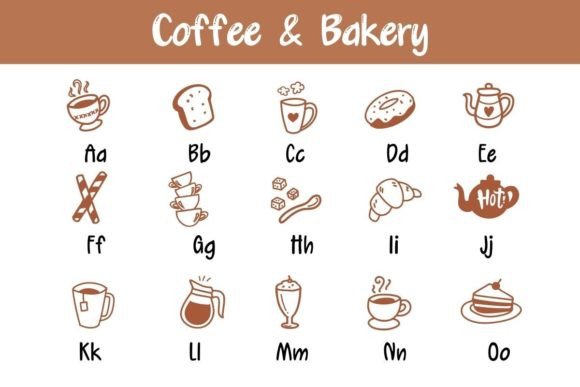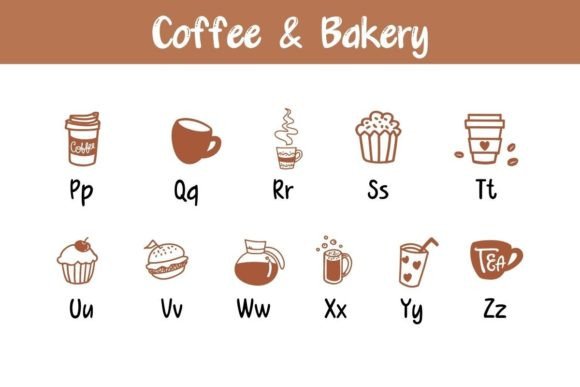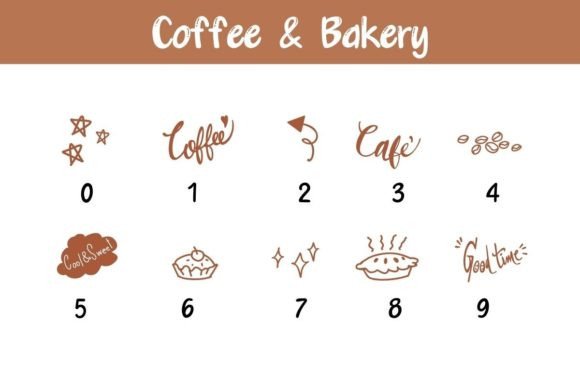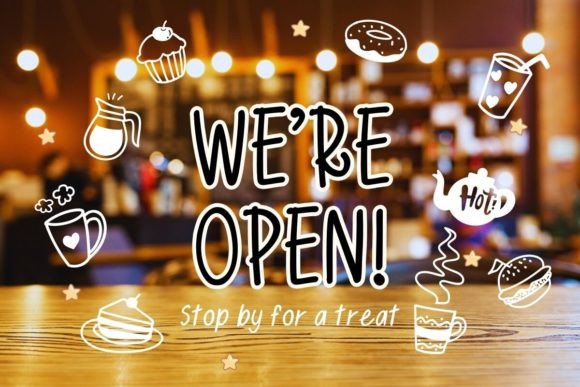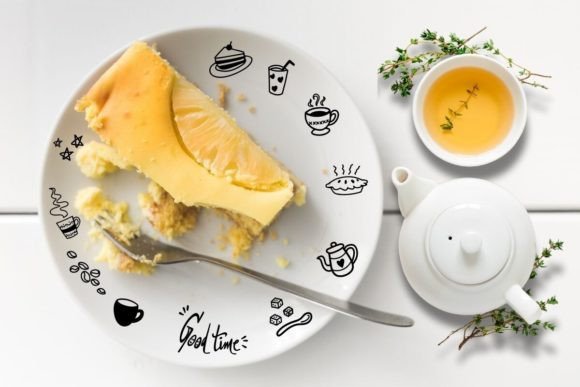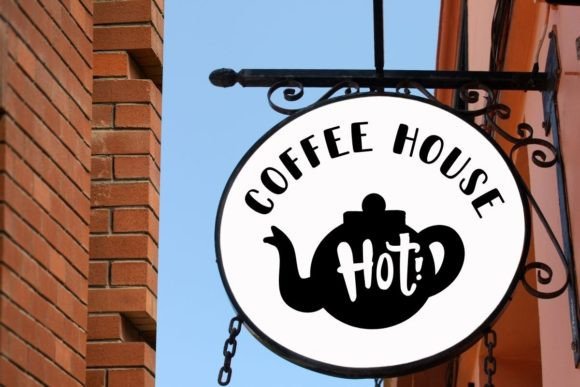
Introduction to Coffee and Bakery Font
Coffee And Bakery Doodle is a charming dingbats font featuring playful illustrations, perfect for creating eye-catching designs with a touch of cuteness.
Ideal for childrenโs books, greeting cards,creative projects such as wedding invitations, DIY, crafts, decorations, logos, social media posts and many other creative ideas.
Key Features of Coffee and Bakery Font